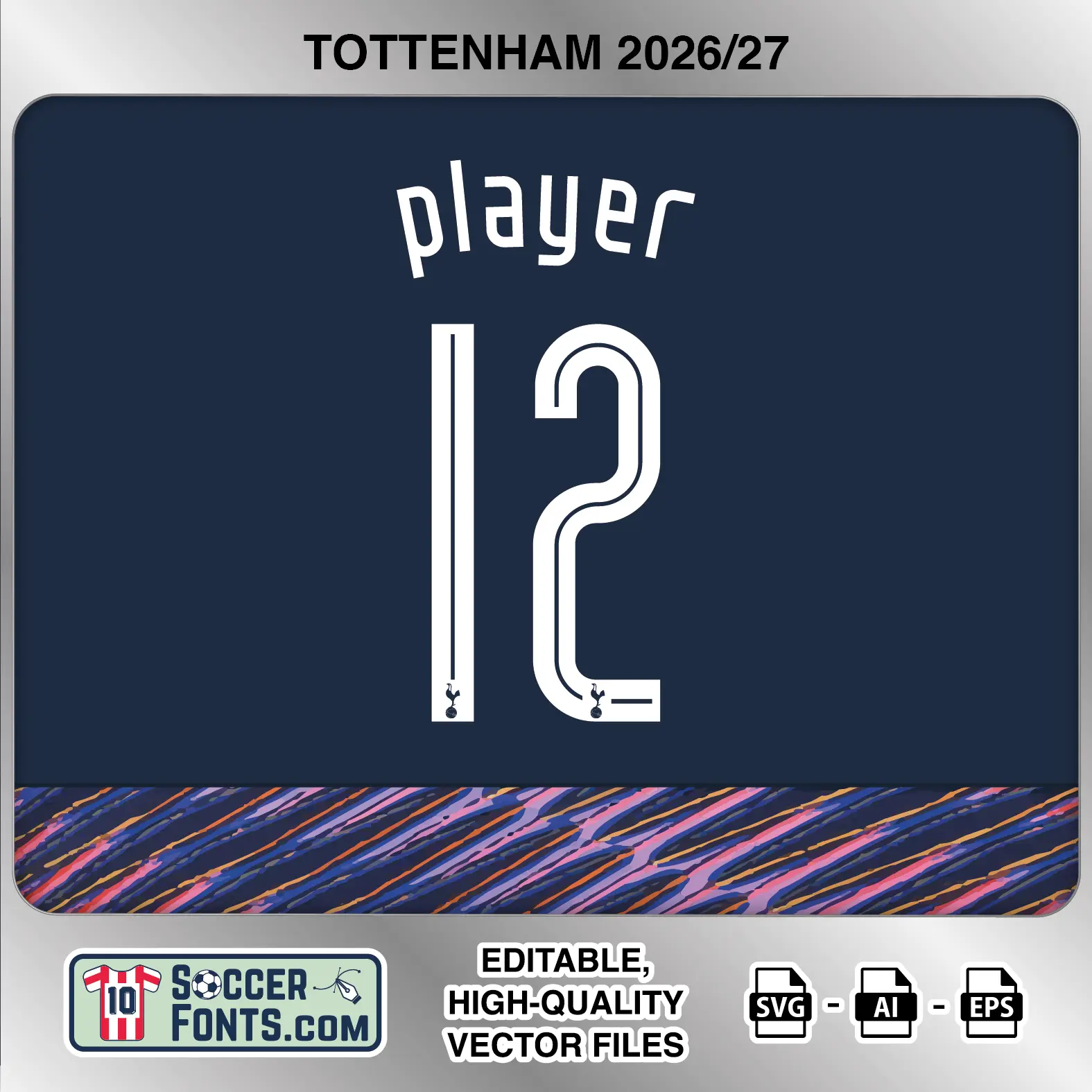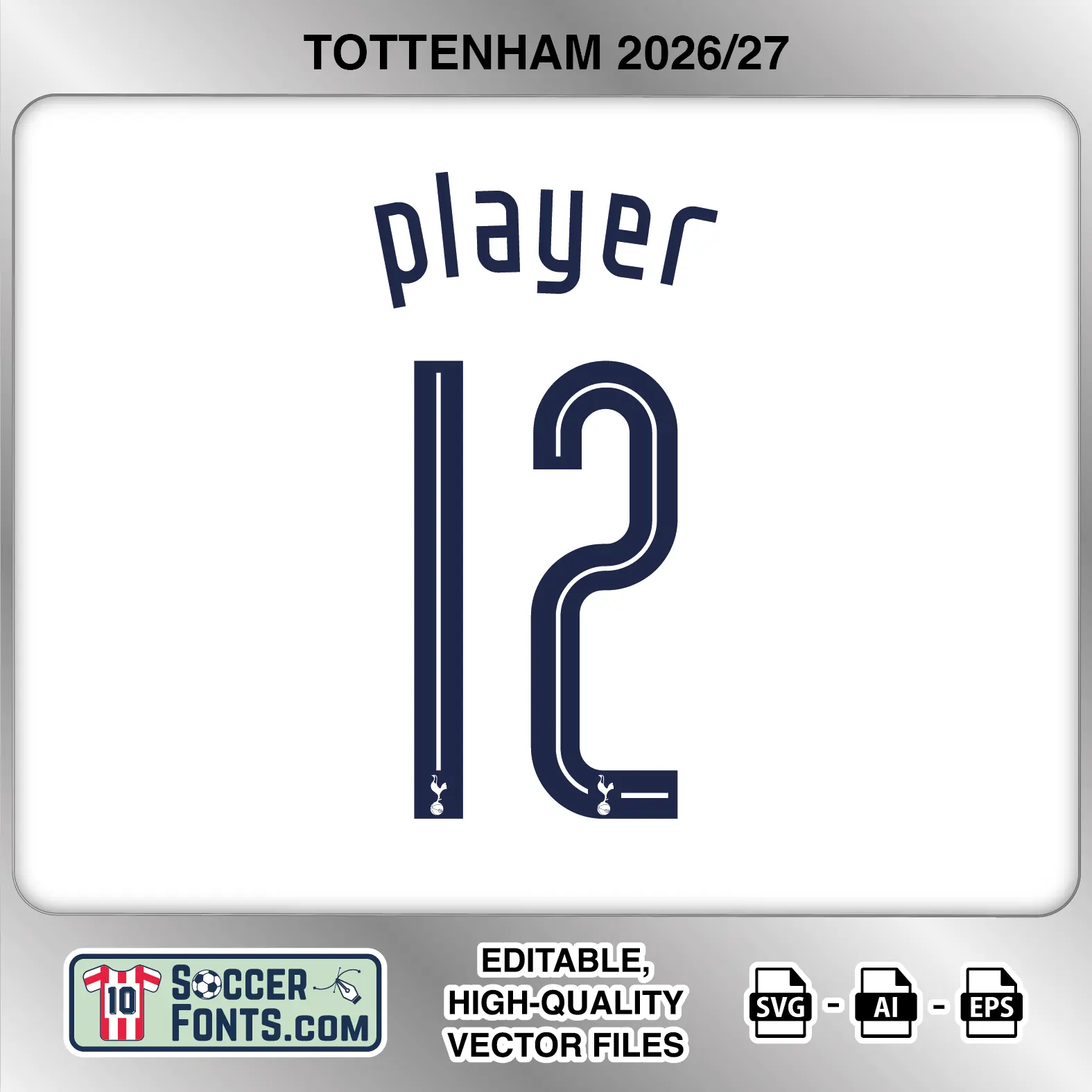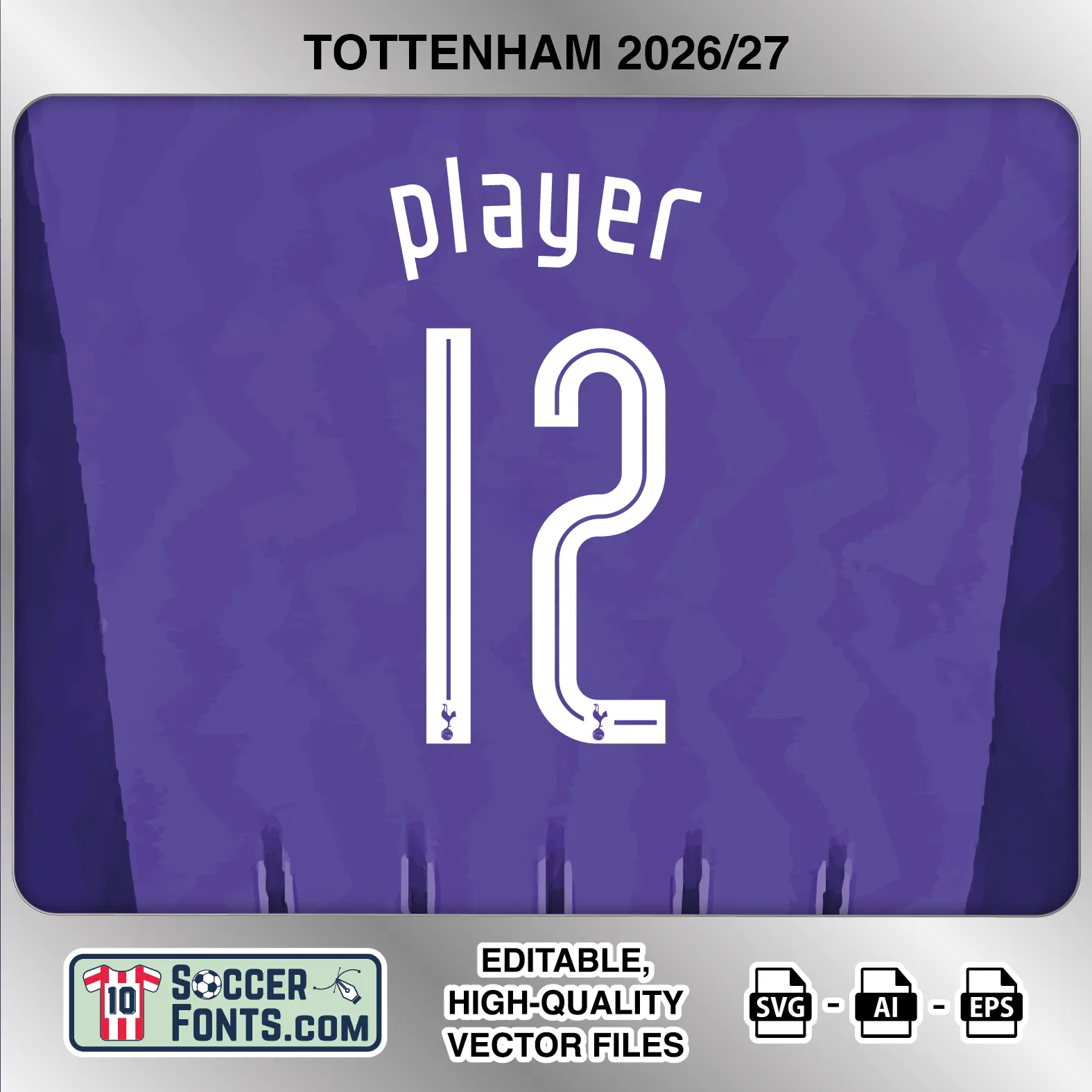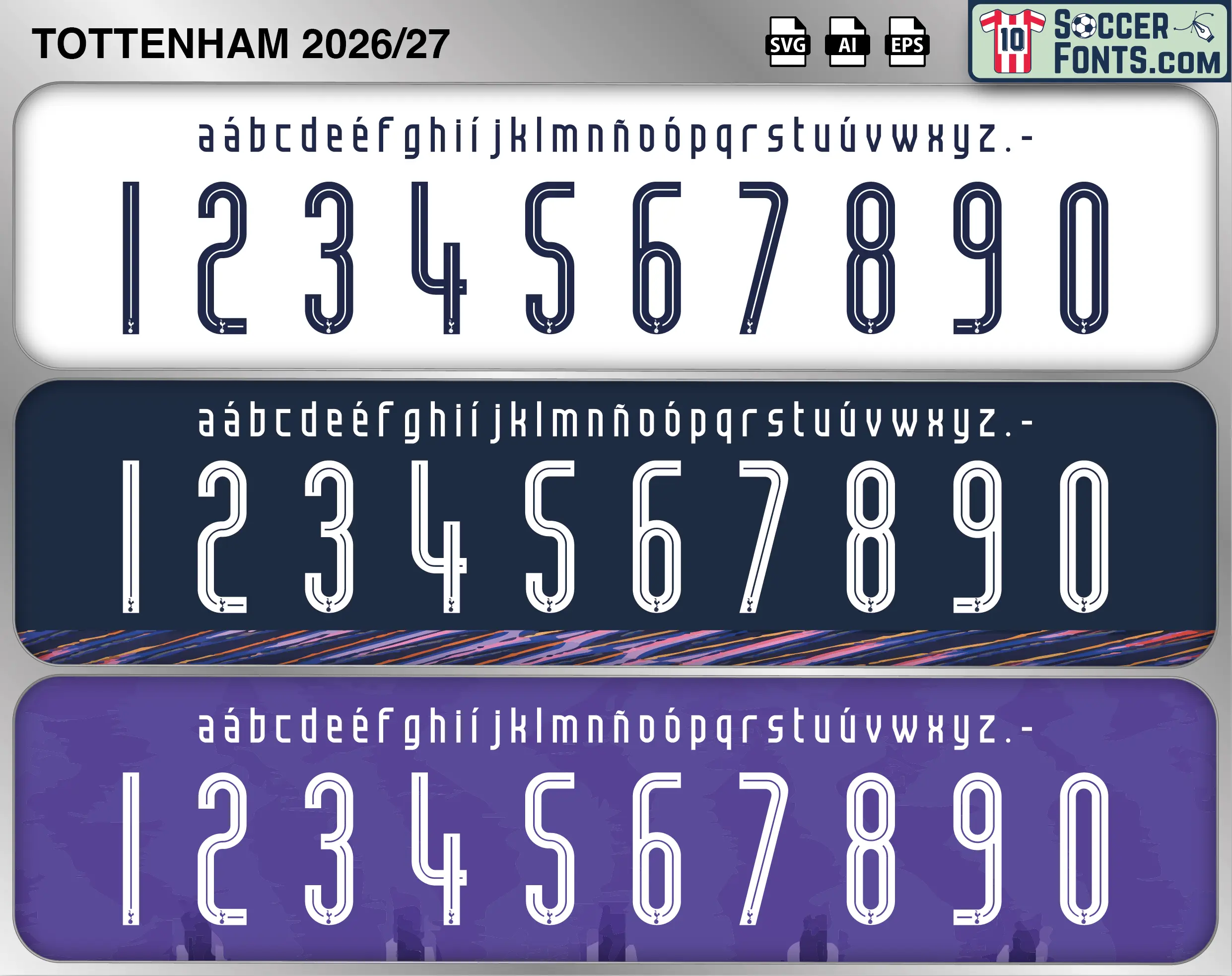
About Tottenham 2026-27 Font
Download Tottenham 2026-27 font, an editable soccer jersey lettering design in vector format inspired by the Tottenham Hotspur kit style used during the 2026-27 football season. The collection includes home, away and third shirt treatments and is prepared for football shirt recreations, custom jersey projects, football kit mockups and sports graphic design workflows.
Visual Identity of the Font Design :
The player-name lettering uses unusually narrow lowercase characters with tall proportions and a slightly irregular geometric construction. Names are arranged in a pronounced upward arch, creating a distinctive curved presentation above the shirt number.
The numerals are extremely tall and slender, with rounded transitions and a continuous thin inset line running through the broad outer stroke. This creates a tubular double-line appearance that is especially noticeable on the curved 2, 3, 5, 6, 8, 9 and 0. The 1 is almost completely vertical, while the 4 combines a long upright section with a compact open lower construction. Several numbers incorporate short horizontal terminal details near the base. A small Tottenham cockerel-and-ball emblem appears at the bottom of every numeral. The home treatment uses dark navy on white, while the darker away and purple third presentations use white lettering and numbers. The character set also includes accented lowercase letters.
Context of 2026-27 Season for Tottenham :
The Tottenham 2026-27 Font belongs to Roberto De Zerbi’s first full season in charge after he arrived for the closing stages of the previous campaign. Tottenham entered 2026-27 without European football, placing the Premier League and domestic cup competitions at the centre of the club’s schedule.
The Tottenham 2026-27 Font accompanies a significantly reshaped squad. Summer additions included Andy Robertson, Marcos Senesi, Jan Paul van Hecke, Sandro Tonali and Mateus Fernandes, while later squad registration also included Sávio, Omar Marmoush and Mykhailo Mudryk. Micky van de Ven was named men’s first-team captain, with Pedro Porro, James Maddison, Ben Davies and Archie Gray forming the wider leadership group.
The opening weeks brought a difficult sequence of Premier League results, including matches against Brentford, Newcastle United, Nottingham Forest, Everton and Aston Villa. With London derbies against Chelsea, Arsenal, Fulham and Crystal Palace forming part of the schedule ahead, the Tottenham 2026-27 Font represents the club’s shirt identity during a season focused primarily on rebuilding domestic momentum.